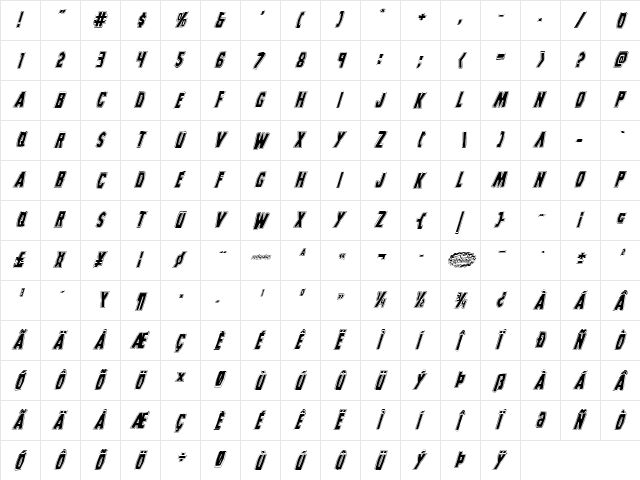
Grim Ghost College Italic Italic
Design Context for Grim Ghost College Italic Typeface
Grim Ghost College Italic brings high-energy athletic personality to the page — its confident, muscular forms are built for impact. The dynamic lean of this cut emphasises speed and emphasis in any layout.
A natural choice for gym brands, fantasy sports, jersey lettering, and action-driven headlines.
Pro Tip: Use Grim Ghost College Italic in all-caps headlines where its athletic energy can fully express itself. Pair with a solid, simple sans for supporting text.